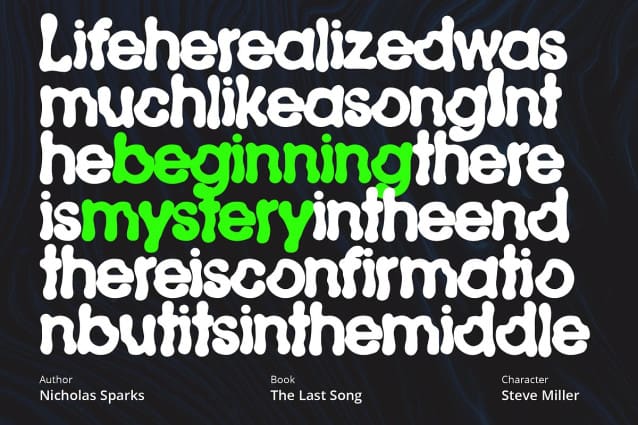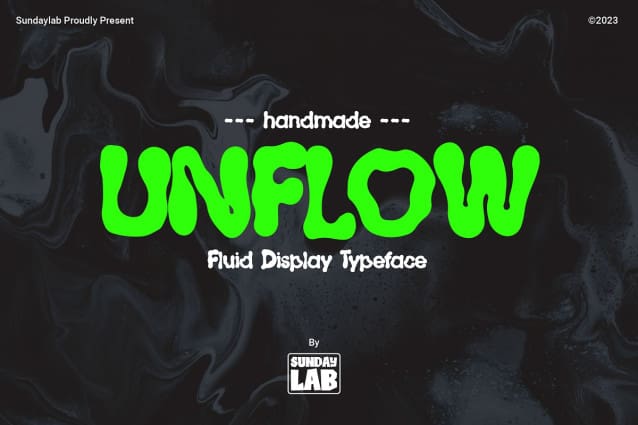
Unflow Display Font
Unflow Display Font is a display font that can help display messages in the designs you create. With its fluid character, it is suitable for you to use on posters, flyers, magazine covers, books, vinyl, CDs, and many other media.